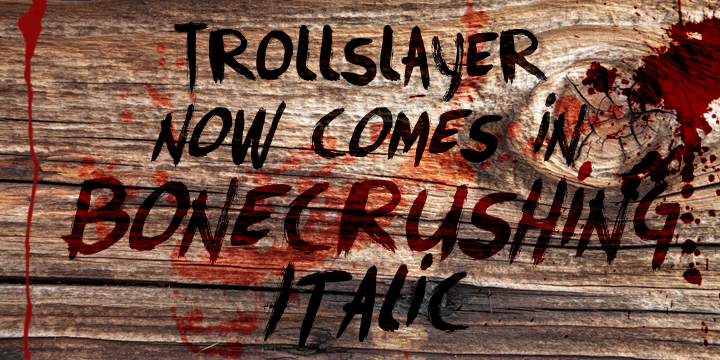
Trollslayer Font excels in diverse design applications including fantasy gaming interfaces, epic adventure movie titles, medieval warrior branding, heroic legend book covers, fantasy role-playing materials, Nordic mythology projects, epic quest game designs, and legendary hero-themed entertainment that requires warrior sophistication and epic battle authenticity.
What makes Trollslayer Font truly exciting is its commanding embodiment of heroic courage and legendary warrior spirit that captures the essence of mythical champions who venture into dangerous realms to face monstrous creatures and protect innocent villages from the ancient terrors that threaten civilization. This powerful typeface features bold, weapon-inspired letterforms with subtle battle-worn details that evoke images of legendary warriors wielding enchanted swords, epic confrontations with mythical beasts, and the unwavering determination that drives heroes to face impossible odds in defense of the helpless. The font's heroic character reflects the courage and strength required to stand against legendary monsters, making it perfect for brands that want to communicate warrior excellence, heroic determination, and the epic storytelling that defines classic fantasy adventures. Its battle-ready appearance creates immediate associations with heroic legends and epic quests.
The Trollslayer Font family includes multiple weights and heroic variations designed to enhance epic communication. The collection features Light, Regular, Medium, Bold, and Black weights, each maintaining the font's characteristic warrior appeal while offering different levels of heroic presence. The family also includes alternate characters with varying battle effects, weapon-inspired elements that simulate legendary armaments, and stylistic sets that create powerful text arrangements reflecting the intensity of epic confrontations. Additional features include contextual alternates and legendary ligatures that enhance the authentic, heroic appearance.
Gaming and entertainment professionals consistently choose Trollslayer Font Free Download for projects requiring authentic warrior character and epic credibility. The font's heroic nature makes it particularly effective for fantasy gaming companies, entertainment studios, and adventure-themed brands targeting audiences who appreciate legendary storytelling and heroic fantasy adventures. Its excellent readability across various applications ensures effective communication while maintaining the distinctive warrior character that conveys epic authority and legendary sophistication.
The advanced OpenType capabilities of Trollslayer Font include contextual alternates, stylistic sets, and comprehensive character support that accommodates fantasy terminology and heroic expressions while preserving the font's authentic warrior character. The technical precision ensures consistent epic appearance across different gaming applications and fantasy platforms.
For creative professionals seeking a typeface that embodies genuine warrior heritage and epic sophistication, Trollslayer Font offers unparalleled heroic appeal and legendary elegance. Its ability to convey warrior strength while maintaining functional communication makes it invaluable for gaming studios, entertainment companies, and fantasy-themed brands. The font's distinctive heroic character ensures memorable epic impact across all applications, creating powerful visual identity systems that celebrate the timeless appeal of heroic legends and the courage of warriors who face impossible odds to protect the innocent and defend civilization against ancient evils.